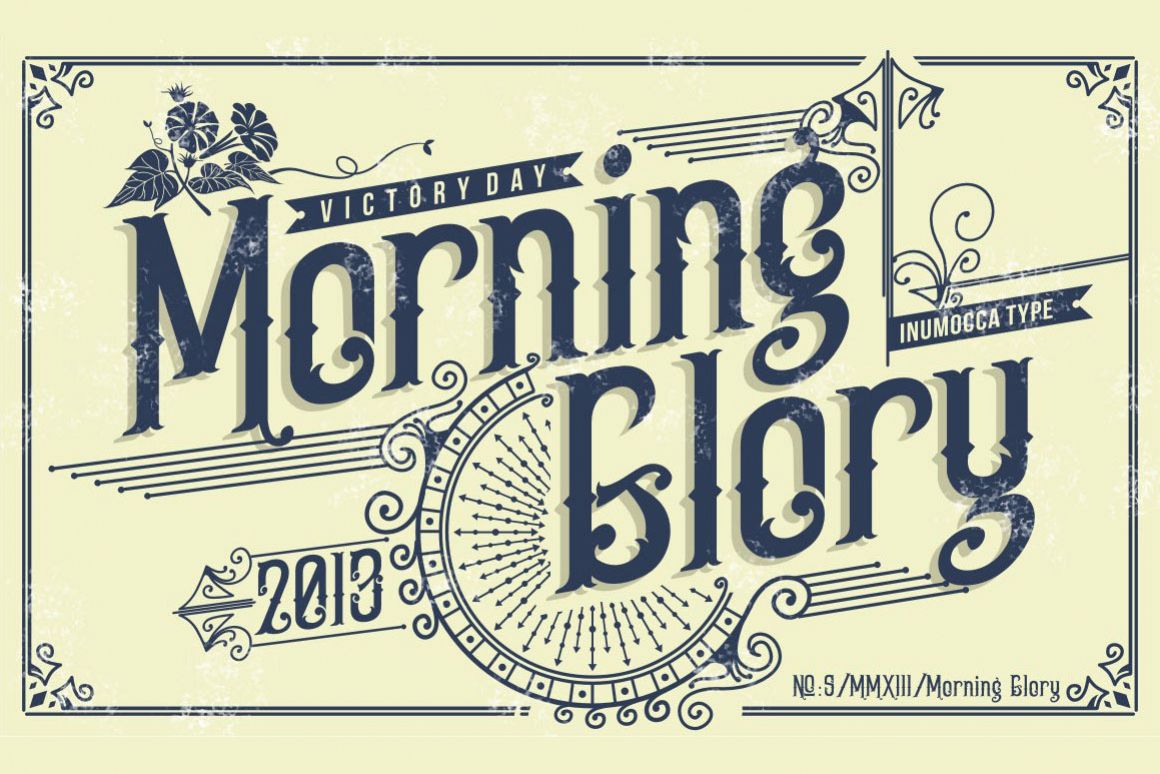
Morning Glory
Morning Glory Font
Morning Glory
Morning Glory inspired from Victorian age, take a culture of fashions, politic and art
Available : UPPERCASE
LowerCase
Numeric,
Symbol,